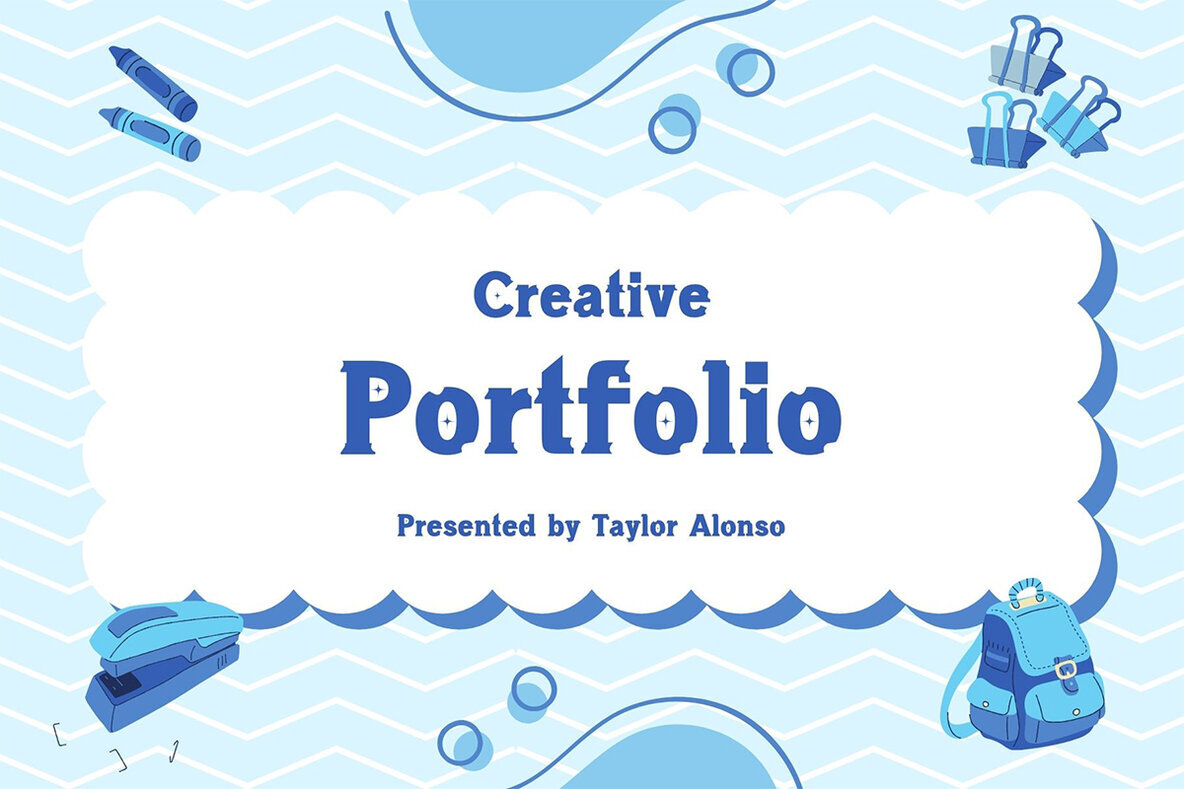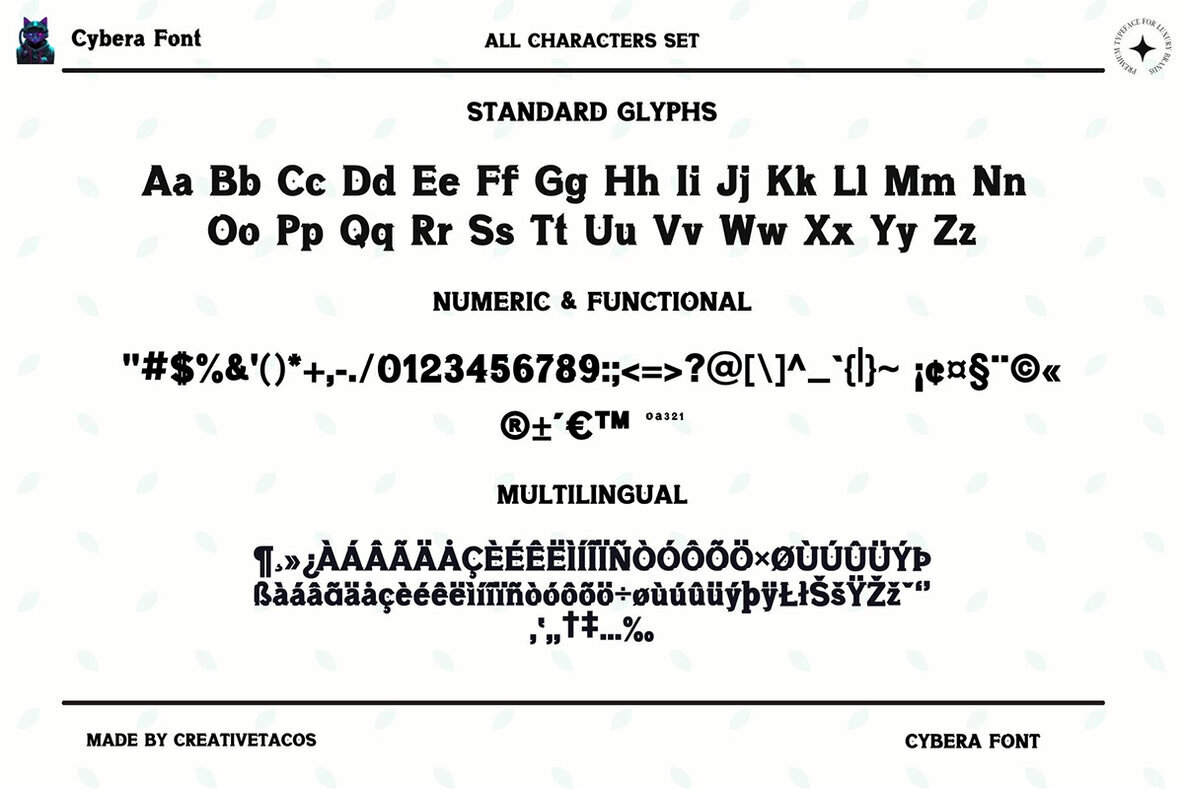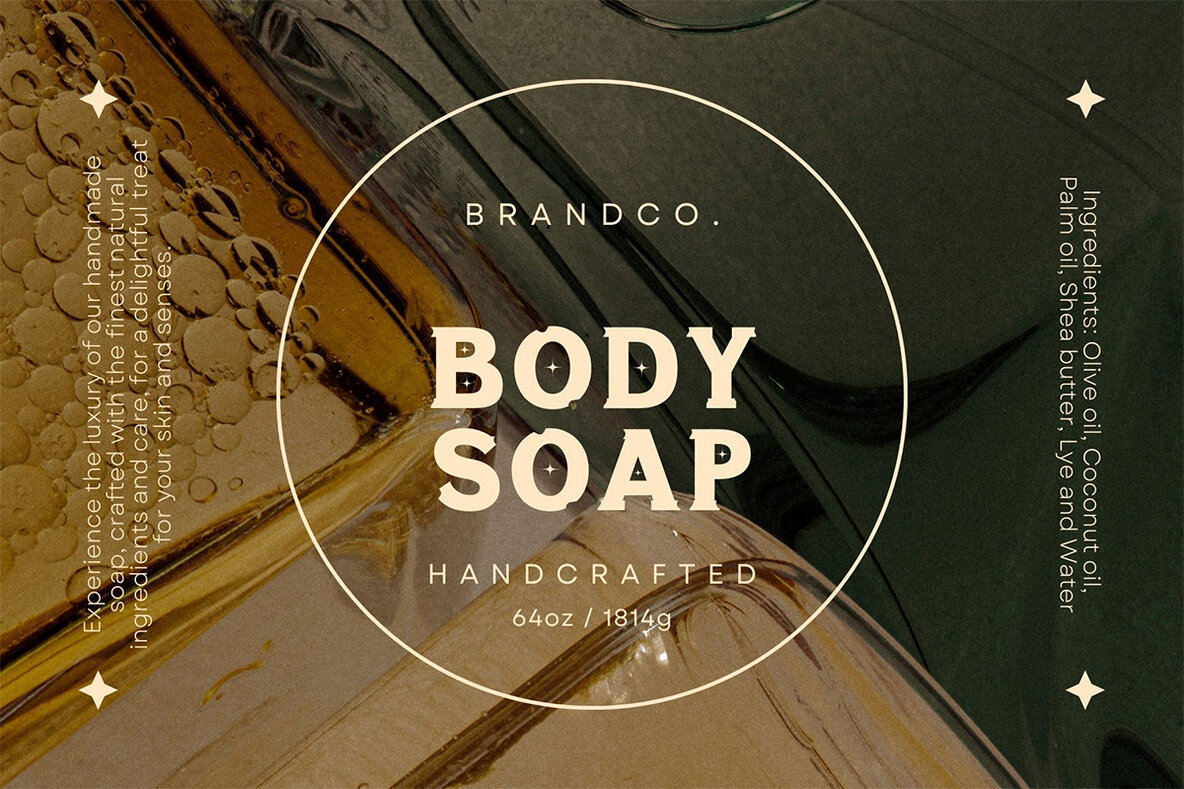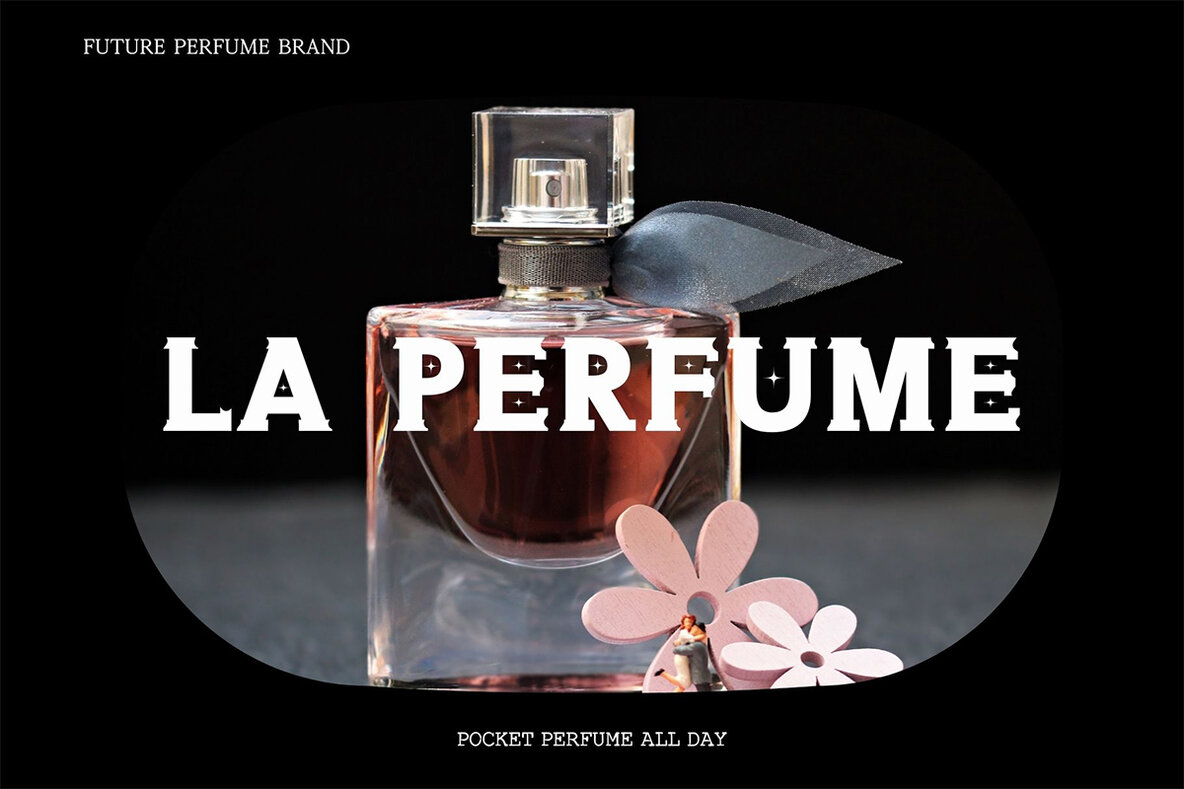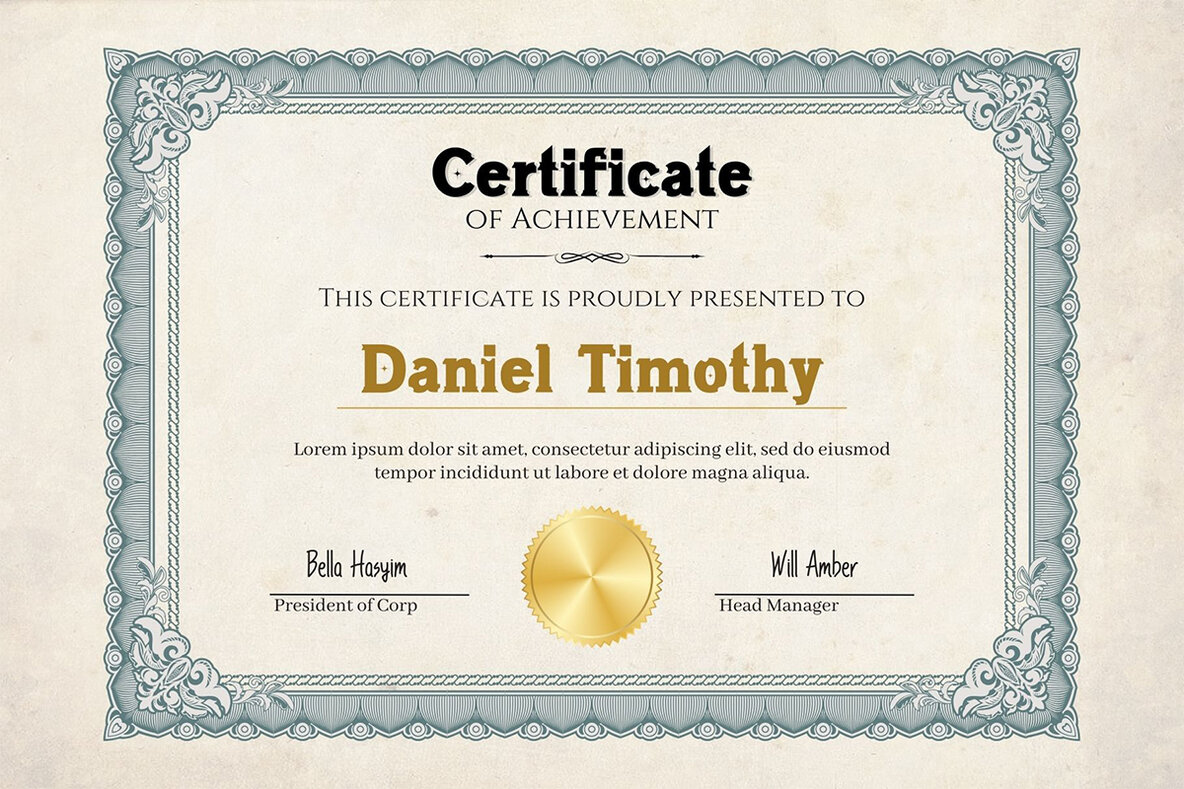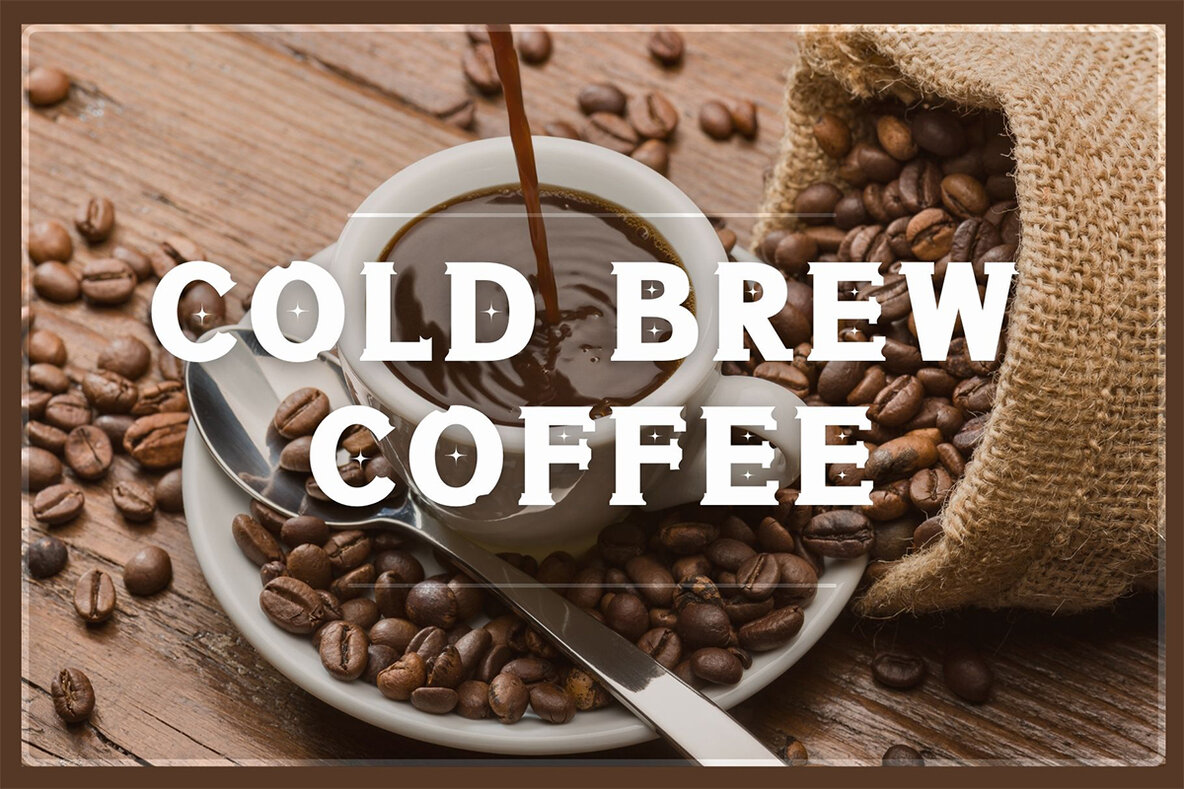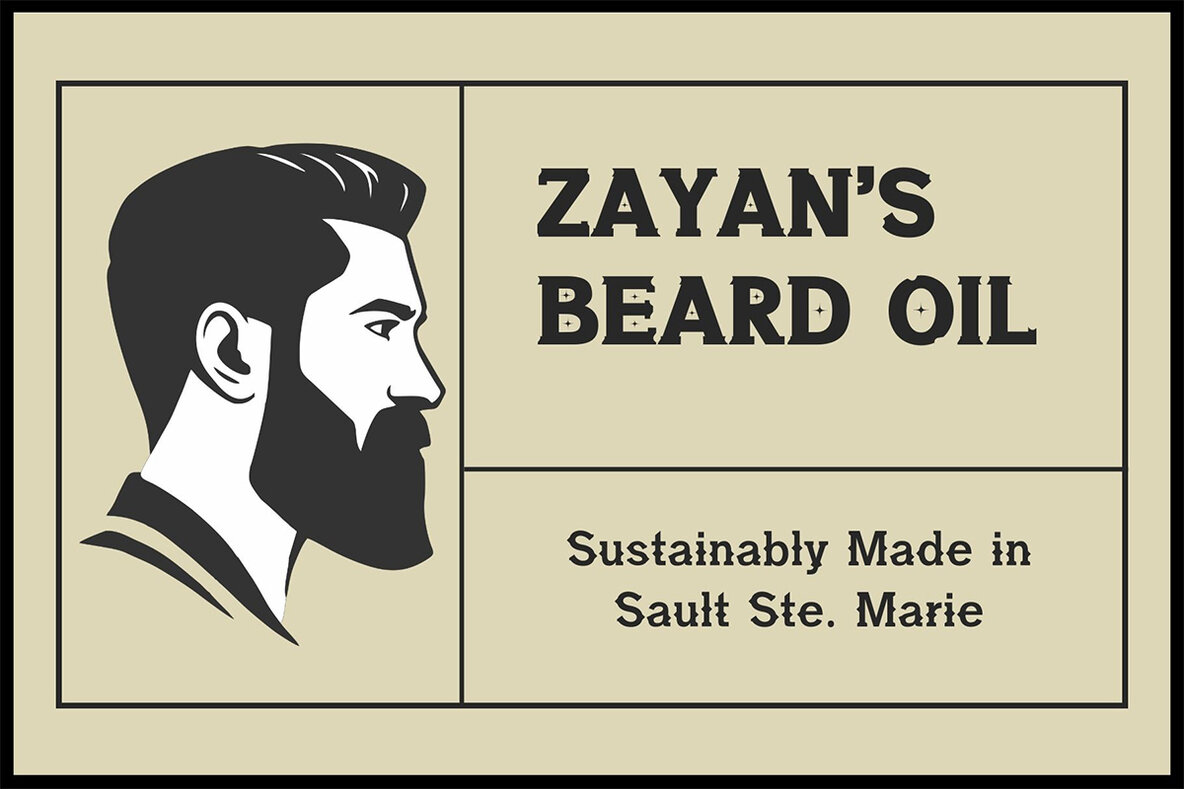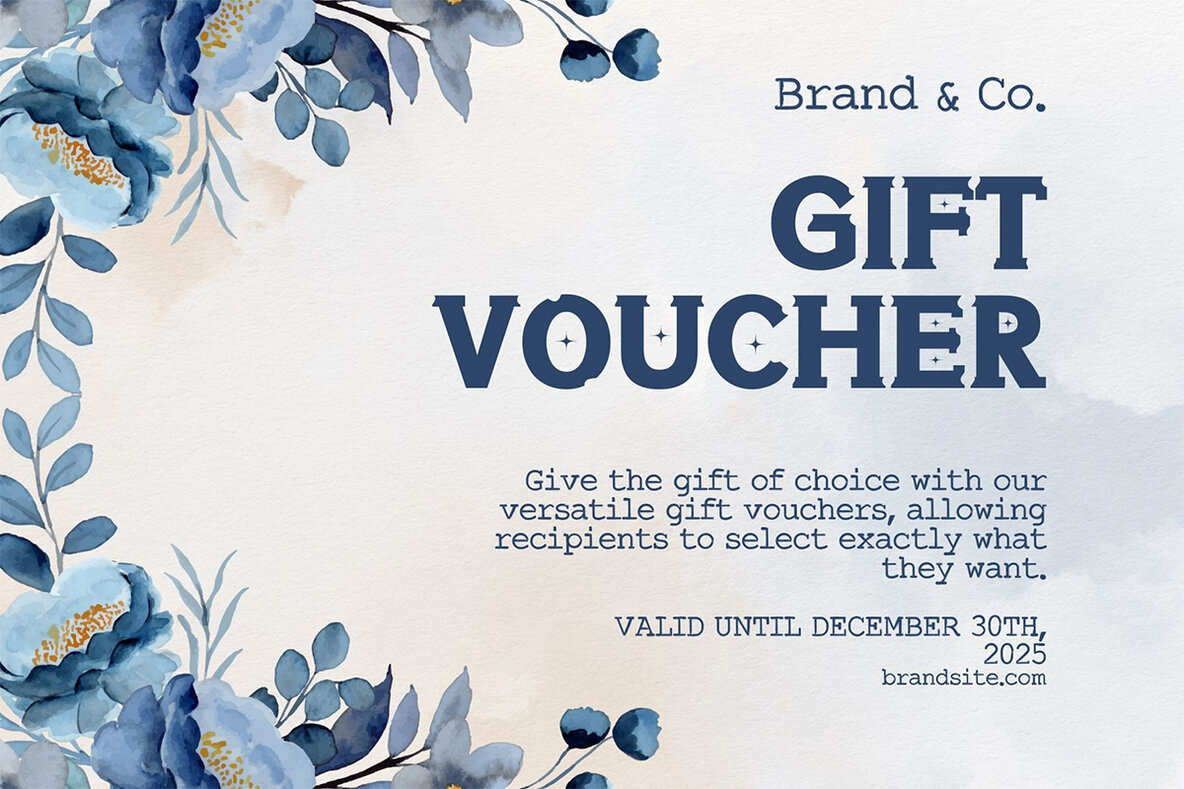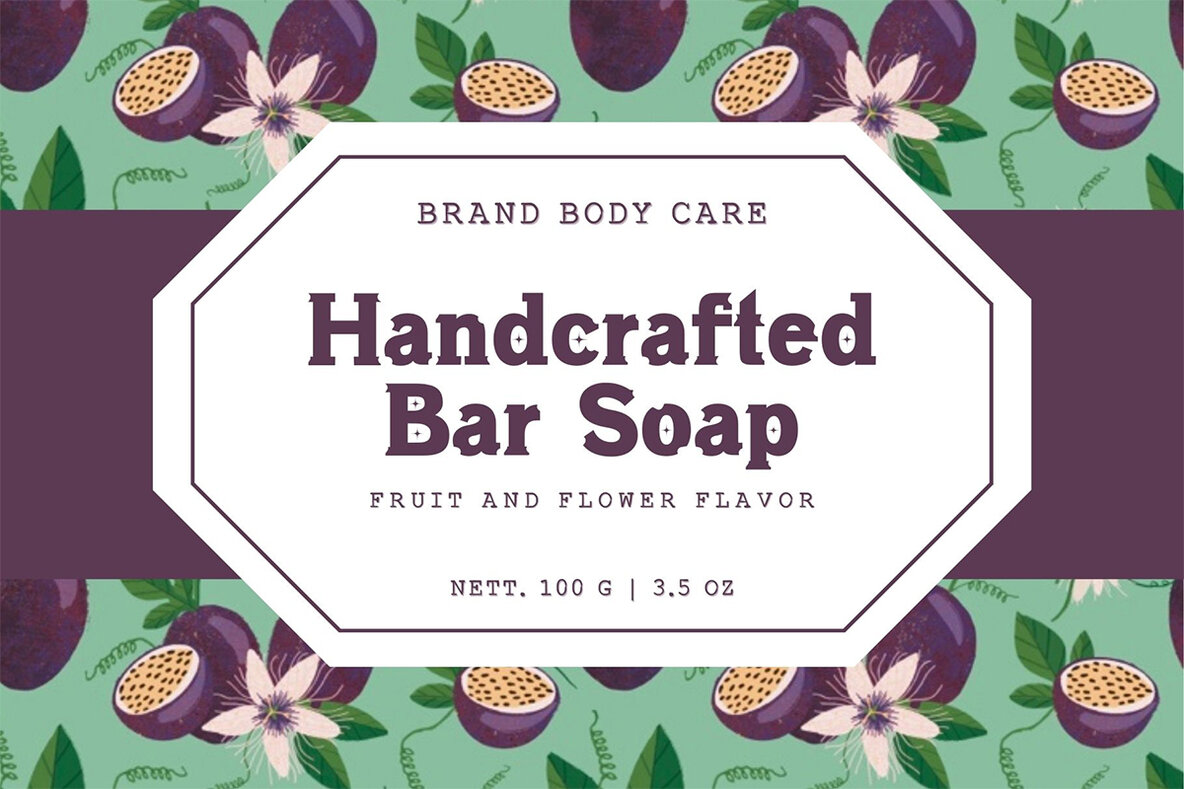
Cybera Font
Cybera Regular
Cybera is a bold, futuristic typeface perfect for graphic designers seeking a modern, cutting-edge look. Its meticulously crafted structure encapsulates the sleek aesthetics of technology and innovation, making it ideal for high-end branding, digital interfaces, and sci-fi-inspired projects. The font features sharp lines and smooth curves, providing a stylish and sophisticated appearance that will help your work stand out in the digital realm. Whether your project involves designing for technology brands, video games, apps, or luxury digital products, Cybera offers an unparalleled futuristic appeal.
The font is a complete typeface that includes uppercase, lowercase letters, numbers, punctuation, and special symbols. Its clean and modern design is a fusion of futuristic geometry and sleek aesthetics, making it suitable for both digital and print media. Stylish ligatures enhance character harmony, adding an extra dimension to your text. Cybera also offers multilingual support, ensuring seamless use across various languages. Enter the future of typography with Cybera, a perfect tool for high-end, modern designs that demand attention.